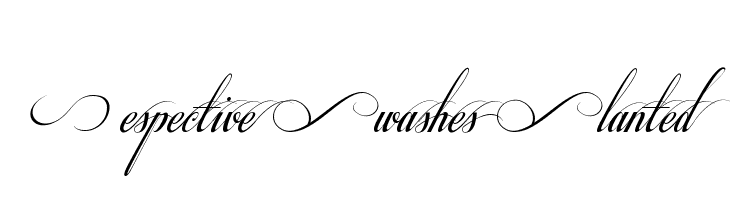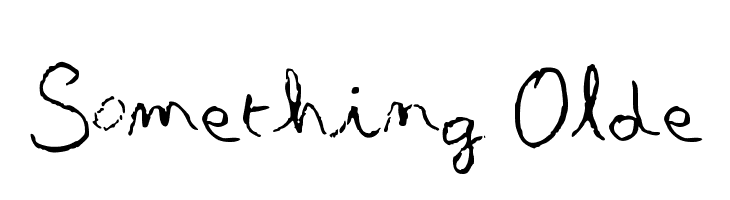
A nostalgic, handwritten font with fluid, organic characters.
An elegant script font with intricate swashes and flourishes.
A fluid, cursive handwritten font with elegant, connected strokes.
An elegant, swash-filled cursive font with a slanted, decorative style.
A dynamic, slanted script font with elegant curves and fluid strokes.
A graceful cursive font with smooth, flowing lines and connected letters.
A graceful cursive font with fluid connections and elegant curves.